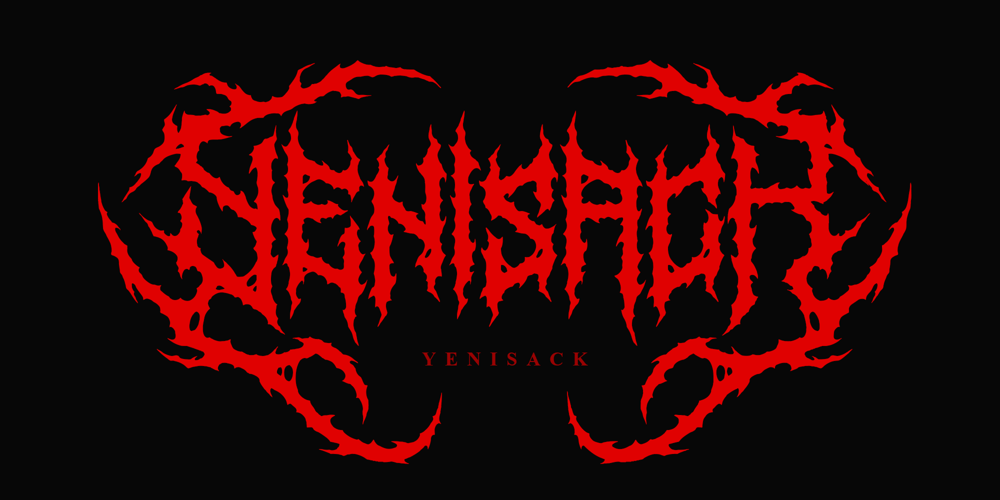
Yenisack Blackmetal Font Family was designed by Achmad Hanif Ulinuha and published by Madhaline Studio. Yenisack Blackmetal contains 1 styles and family package options. TUTORIALS : https://www.youtube.com/@madhalinestudio/videosYenisack is a carefully crafted font, which features a very heavy black metal feel. Yenisack suitable for metal band logos, merchandise, clothing, apparel, or anything that needs a black metal feel.